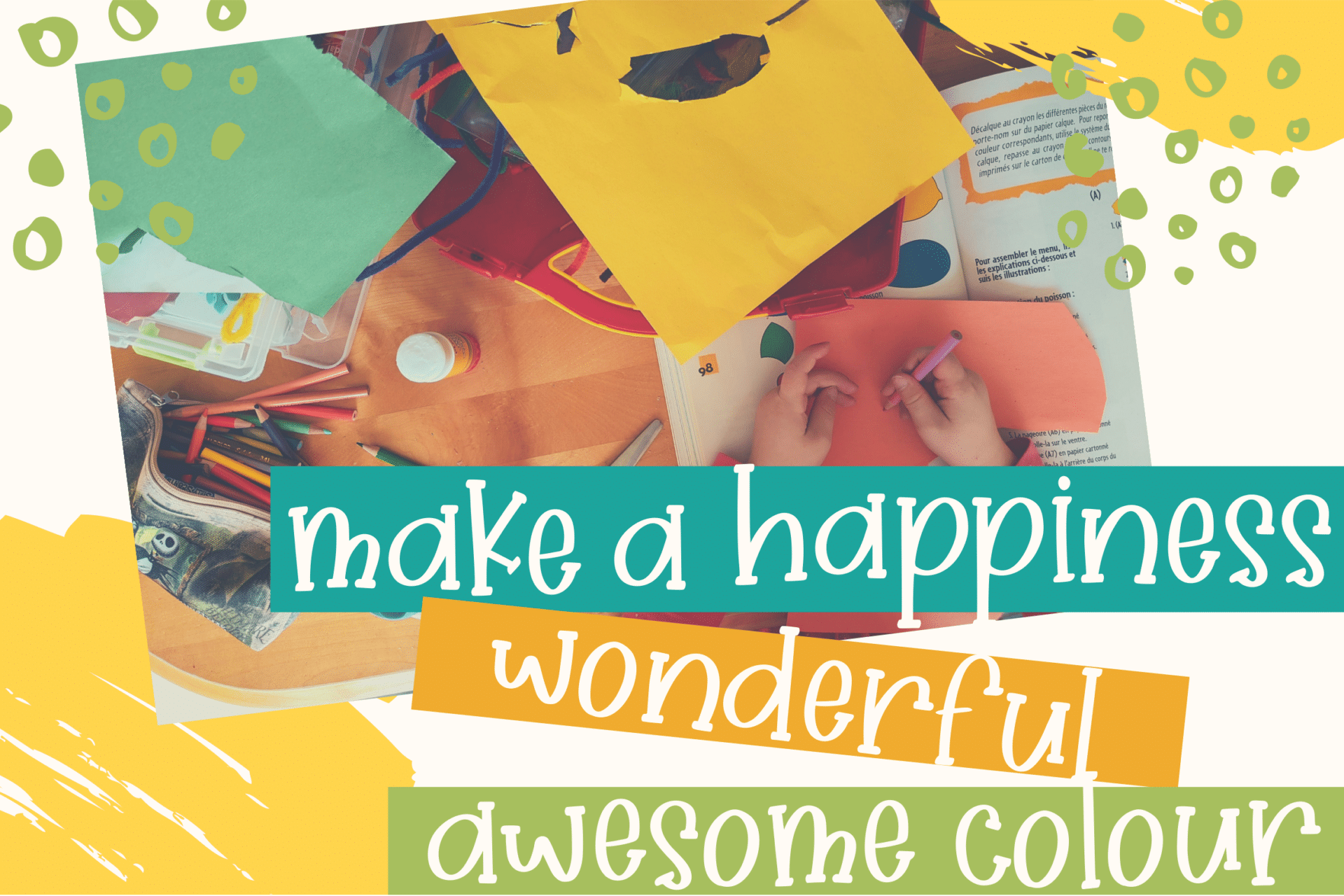
Hallow Spire Font
Hallow Spire is a fun handwritten typeface font. Hallow Spire is perfect for product packaging, branding project, magazine, social media, weddings, or just used to express words above the background.